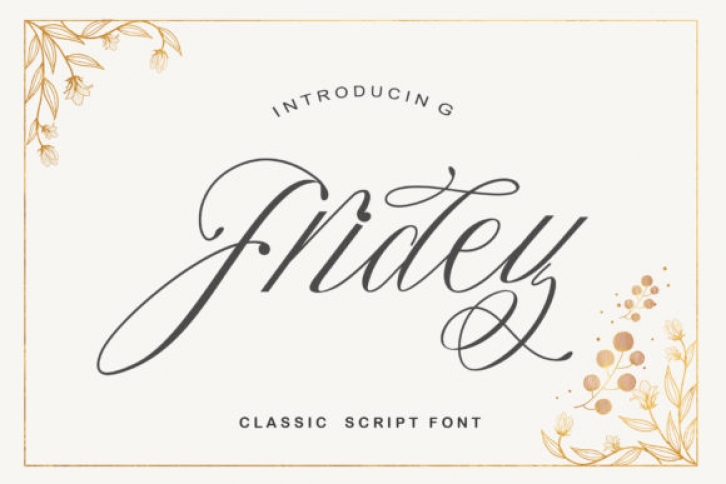
Fridey is a unique and elegant handwritten font. It looks beautiful on a variety of designs requiring a personalized style, such as wedding invitations, thank you cards, weddings, greeting cards, logos and so on.